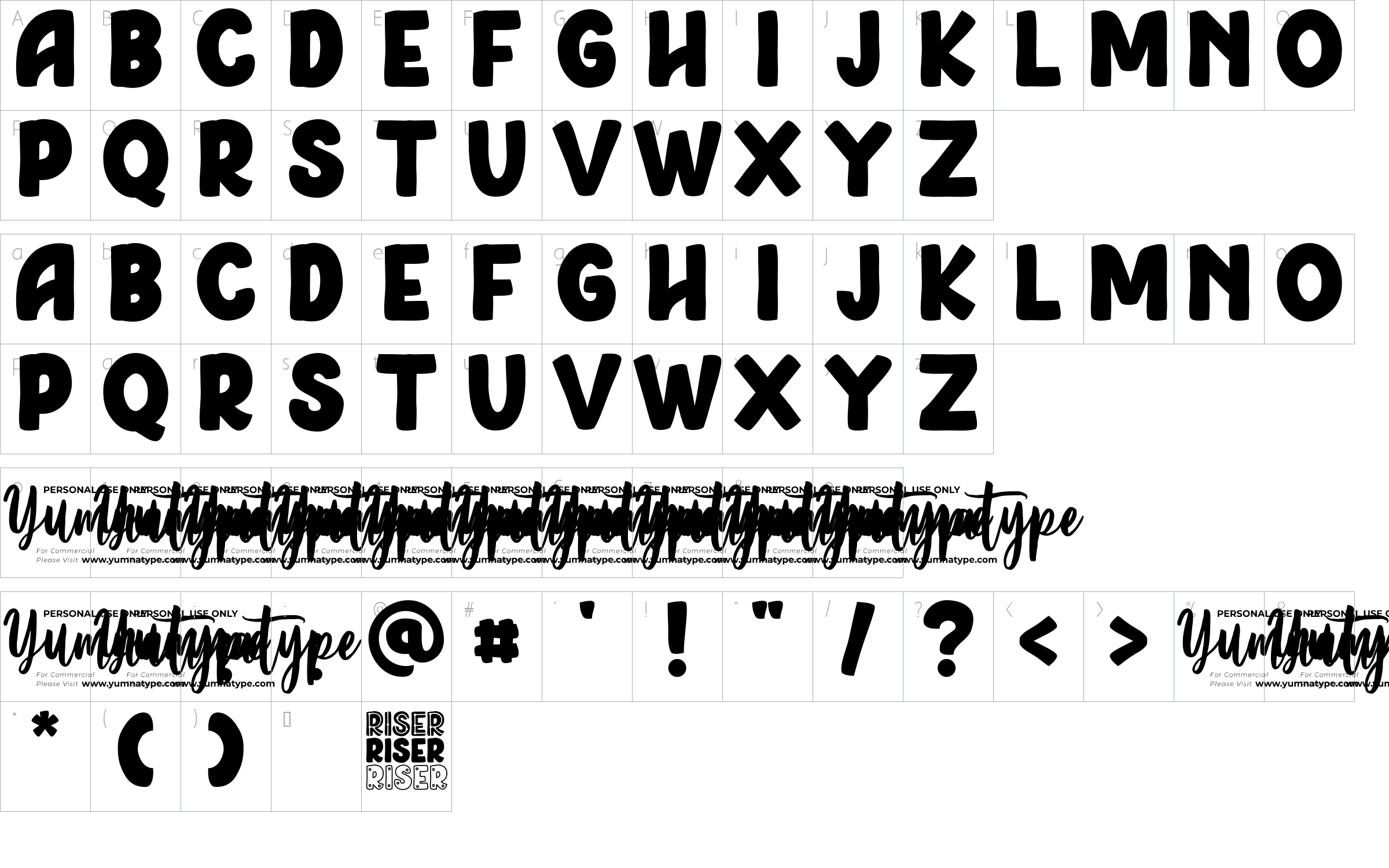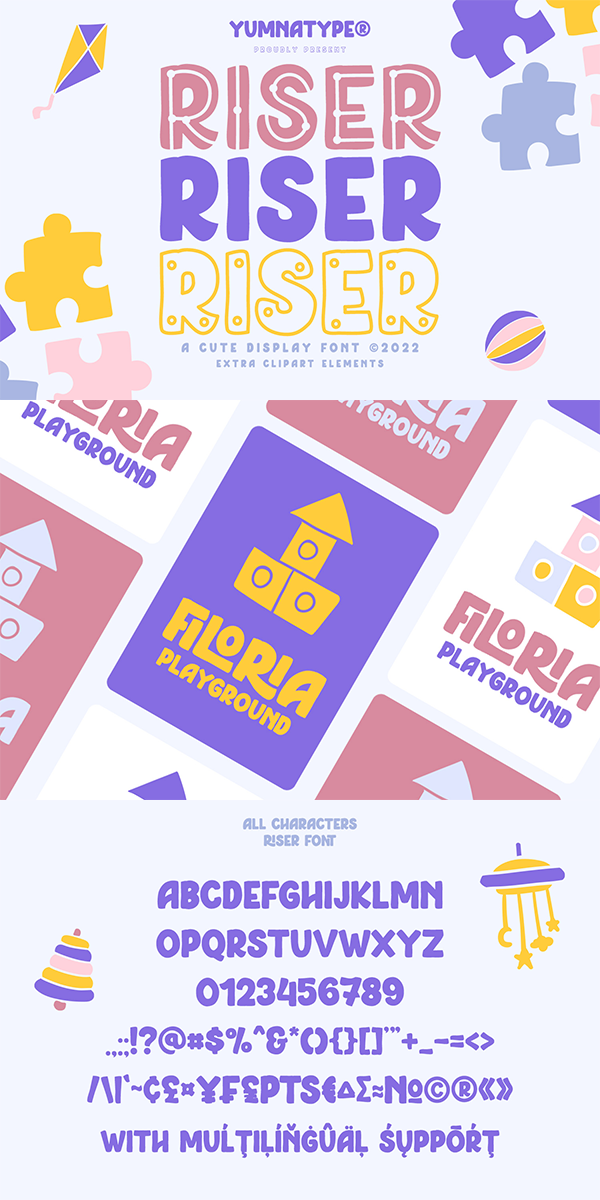
Riser Font
About Riser
Riser is an uppercase display font. It projects warm, cute, and slightly futuristic aesthetic.
It is a cleanly designed outline font that’s easy to read and will look great in a variety of header and title sizes. This font becomes more special with illustrations as the extras.
This font would looks great on your branding, logos, social media quotes, stickers, posters, wall art, merchandise, social media, and many more. Get more inspiration about how to use it by seeing the font preview.